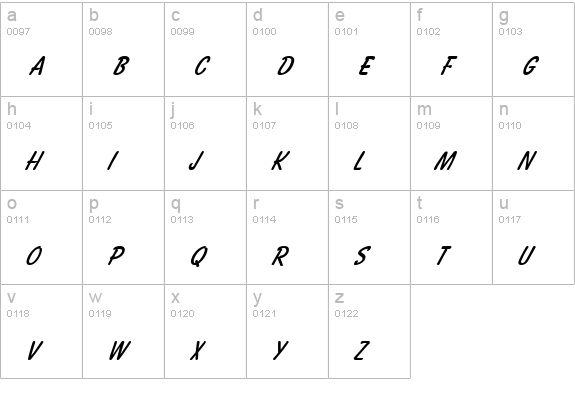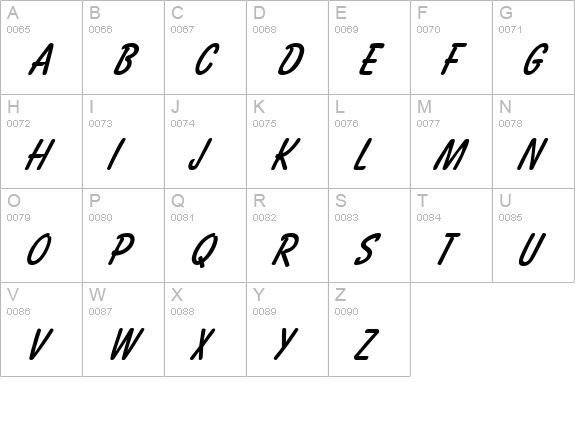
Bassett Italic is a distinctive, italic variant in the Bassett typeface family \xE2\x80\x94 well suited to design and typography projects.
Bassett Italic is a sleek and sophisticated font that exudes elegance and charm. With its graceful curves and stylish letterforms, this font is perfect for adding a touch of sophistication to any design project. Whether you're creating invitations, branding materials, or editorial layouts, Bassett Italic is sure to make a statement. The best part? Bassett Italic is available for free download at FontsMarket.com. Now you can elevate your designs without breaking the bank. Don't miss out on this opportunity to add a touch of class to your projects with Bassett Italic. Download it today and let your creativity soar!